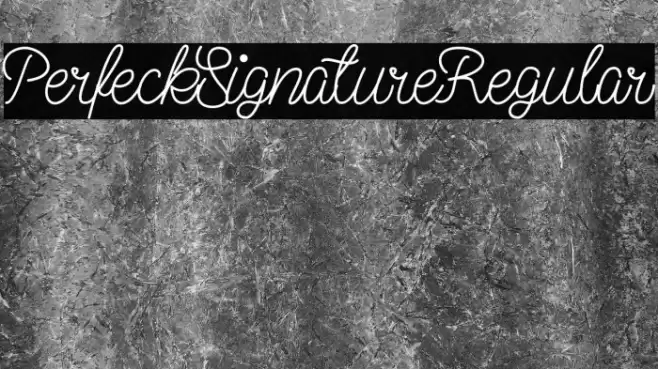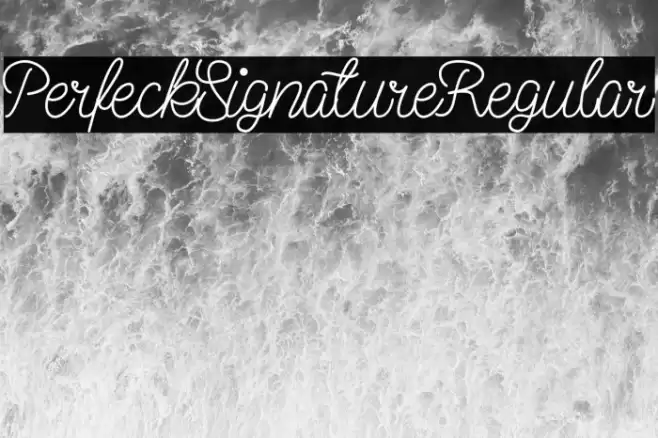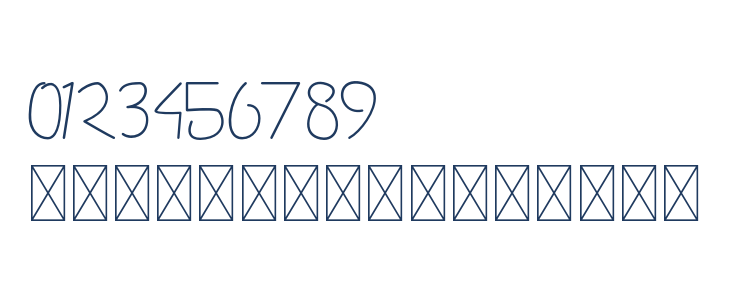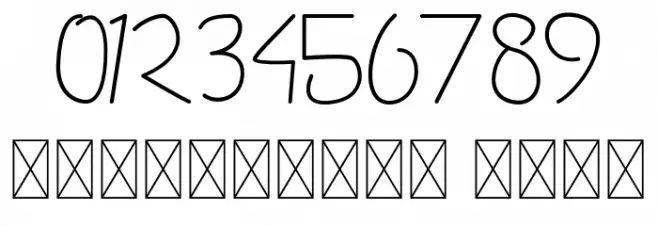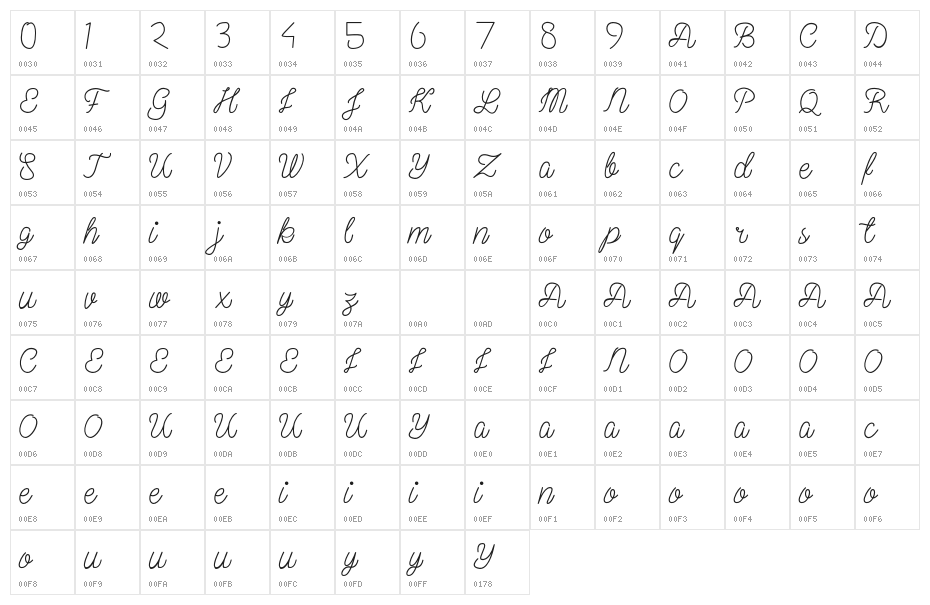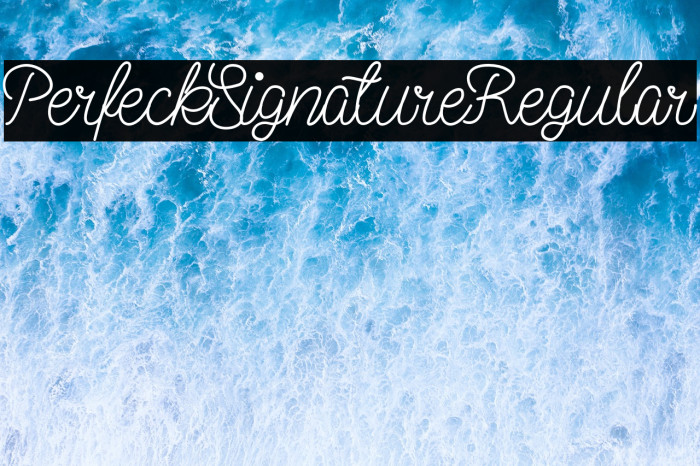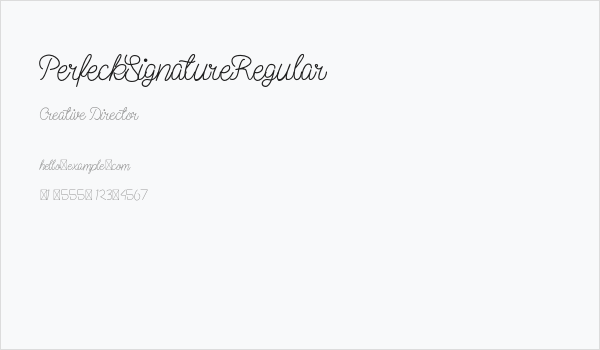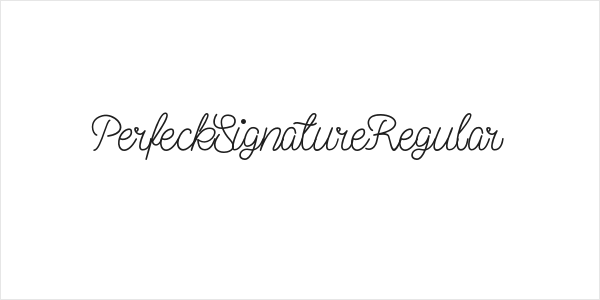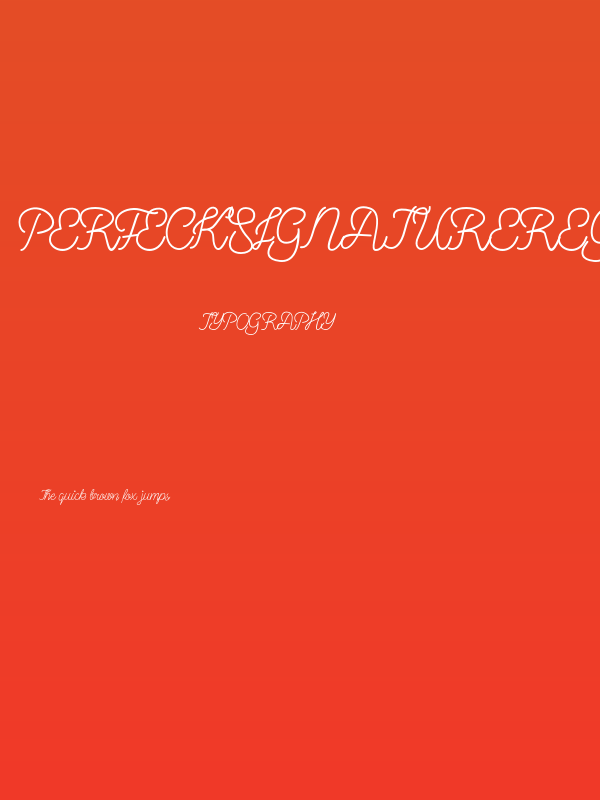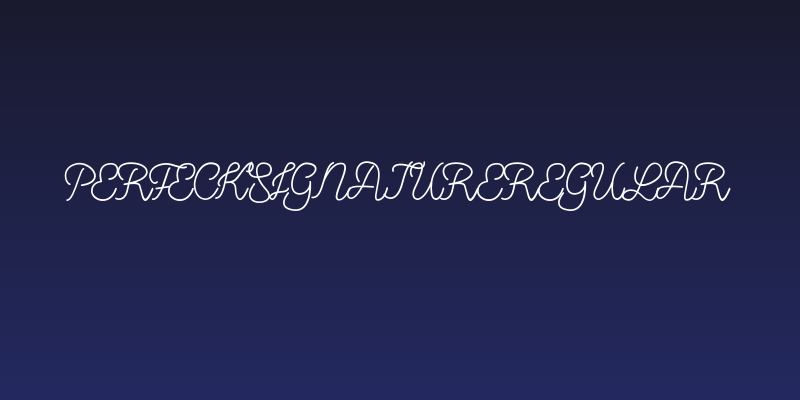
PerfeckSignatureRegular Font
PerfeckSignatureRegular Description
This font exudes a handwritten, cursive style with elegant, flowing lines that mimic the fluidity of a personal signature. The uppercase letters are characterized by their sweeping curves and loops, while the lowercase letters maintain a consistent slant, enhancing the script-like appearance. The numerals are distinct yet harmonize well with the overall style, maintaining the same fluidity and elegance. The special characters are designed to complement the letters, ensuring a cohesive look across all elements. The font's design is both sophisticated and approachable, making it suitable for a variety of creative applications.
A cursive, handwritten font with elegant, flowing lines from Regular fonts.
- Proposed Projects: Ideal for wedding invitations, personal branding, greeting cards, and elegant packaging designs.
- Overall Style: Elegant, Handwritten
- Use Case: Logos, Invitations, Personal Branding